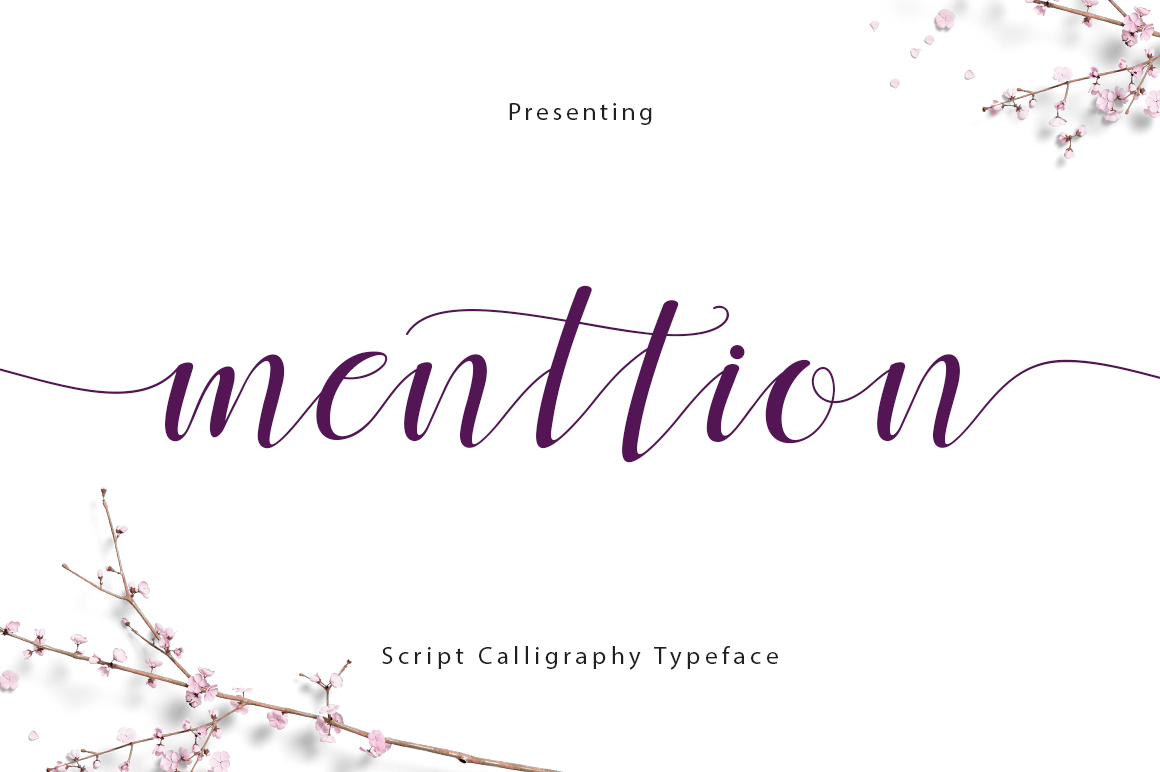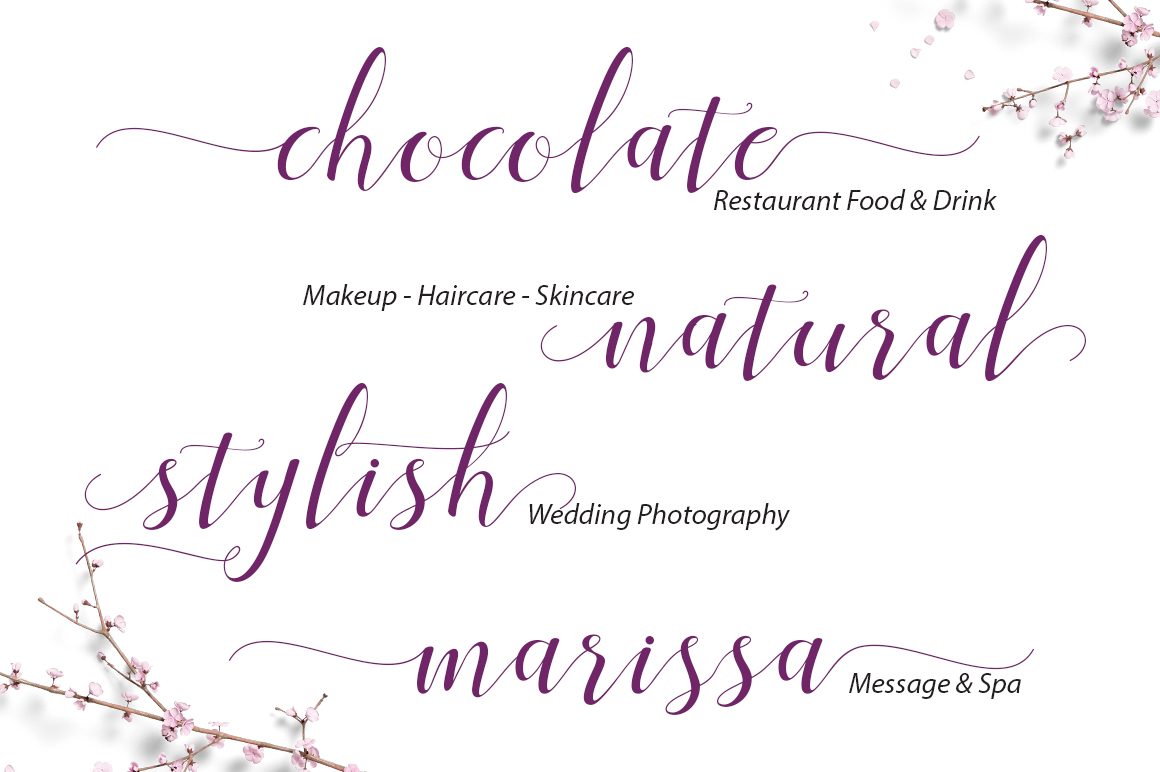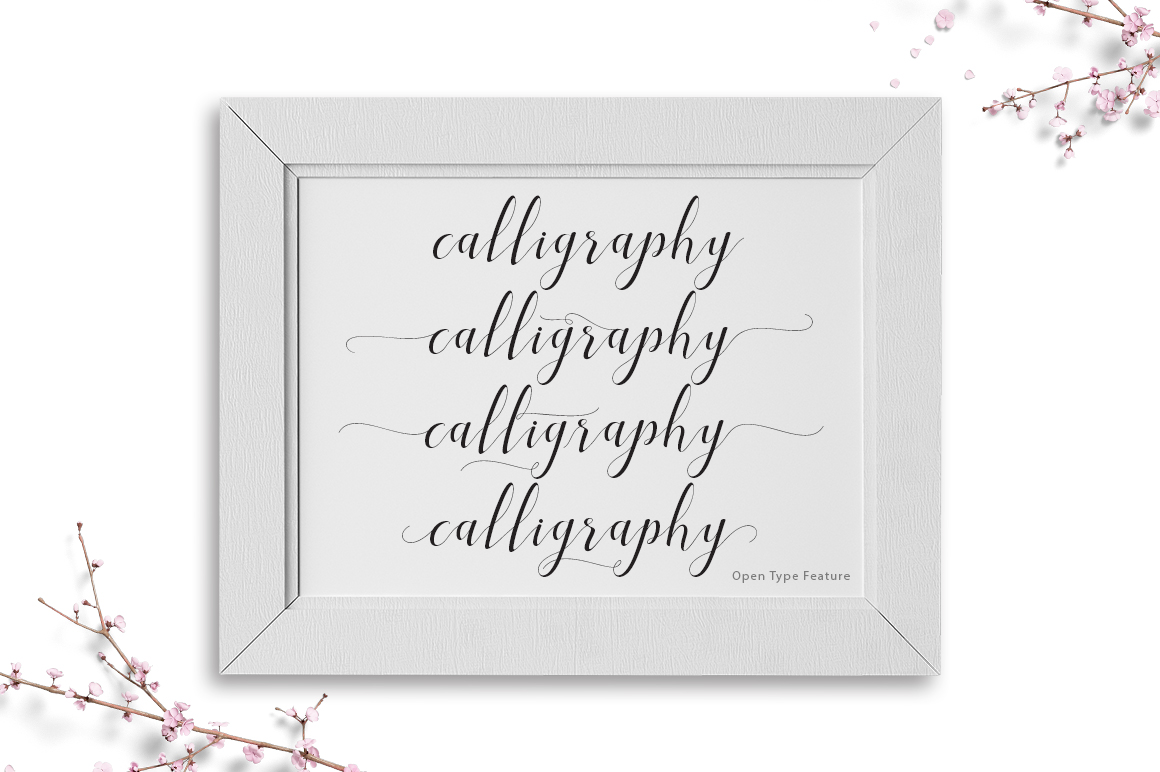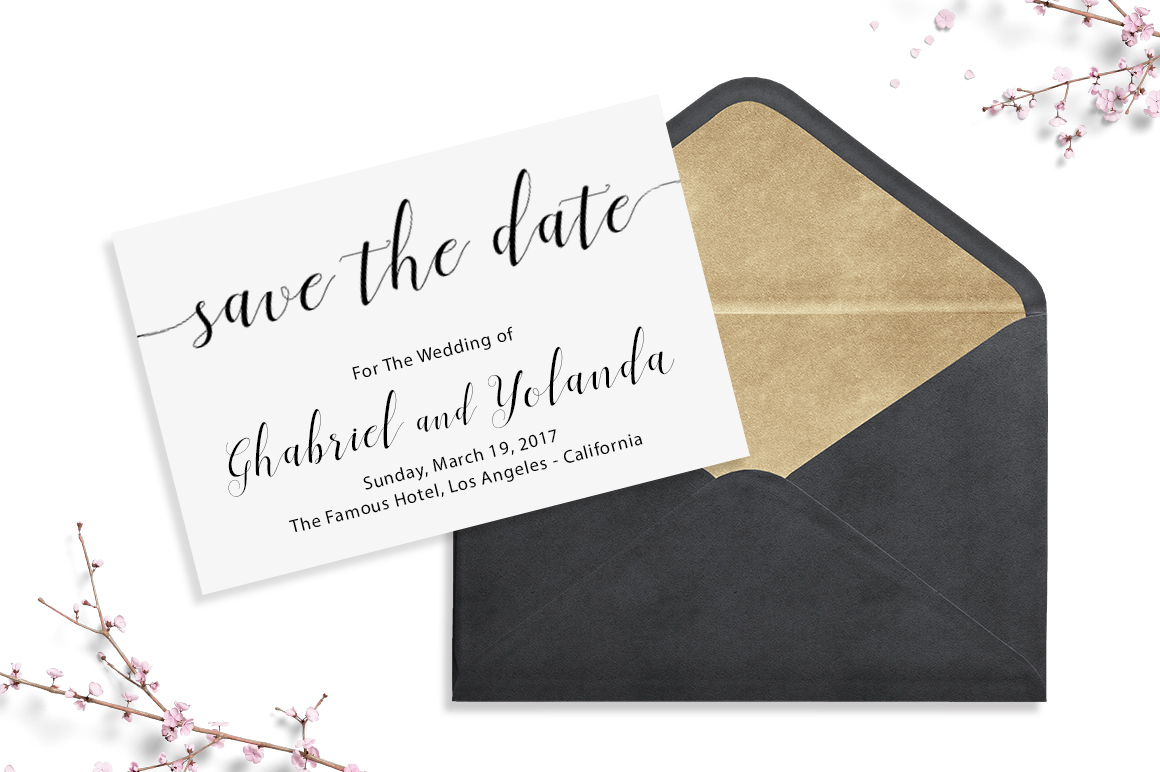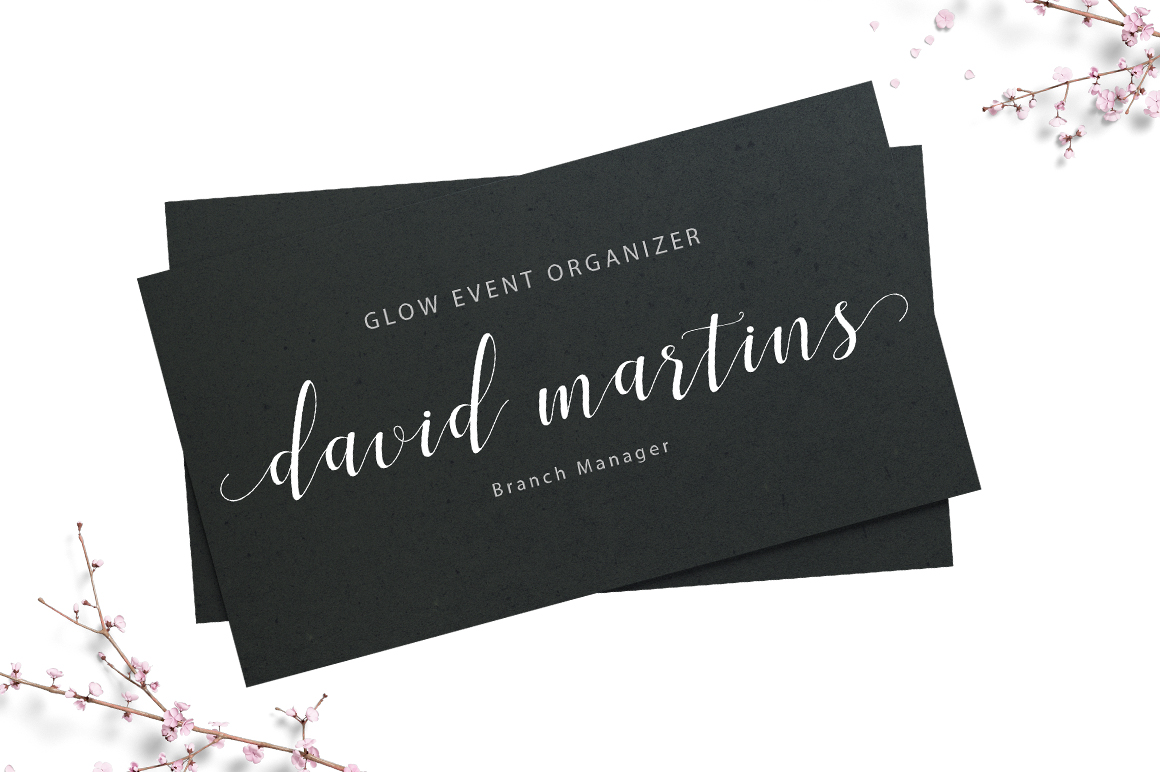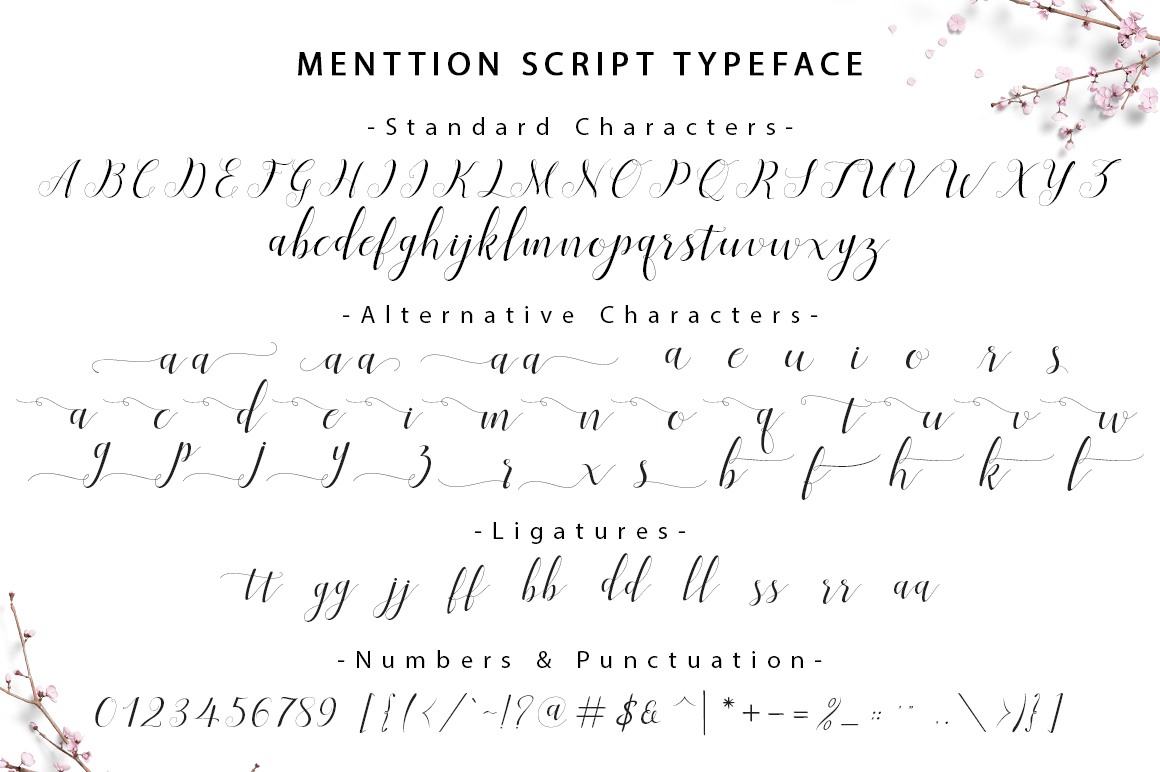
HomeScript FontsMenttion Script Font Script Fonts Menttion Script Font FacebookXPinterestWhatsApp Menttion Script Font Poster 2 Menttion Script Font Poster 3 Menttion Script Font Poster 4 Menttion Script Font Poster 5 Menttion Script Font Poster 6 About Menttion Script Font Menttion Script is a stunning handwritten font packed with stunning, PUA encoded, swashes. DOWNLOAD NOW People also explored Maghee Jolla Font Gelap Ruhaniyat Ab Varsity Outline Font Mensionery Extra Light Font Home Story Font Astar Font Emelyday Font Pearly Font 277 0 TagsMenttion Script Font Previous articleParlinttons Script FontNext articleSyatty Font LEAVE A REPLY Cancel reply Comment: Please enter your comment! Name:* Please enter your name here Email:* You have entered an incorrect email address! Please enter your email address here Website: Save my name, email, and website in this browser for the next time I comment. Personal Use Free Spring Personal Use Free Read more about this font Waverly Date Personal Use Free Read more about this font Miss Love Personal Use Free Read more about this font Rolling Door Personal Use Free Read more about this font BLOG Fonts That Capture the Spirit of New York City New York City is more than just a place—it’s an experience, a rhythm, a visual language... Transform Your Website: Elevate Your Typography with 7 Best Web Font Generators Free Fonts Risk: Why Free Fonts Can Be Dangerous for Designers Using Fonts in Digital Marketing: Tips to Strengthen Your Brand Identity